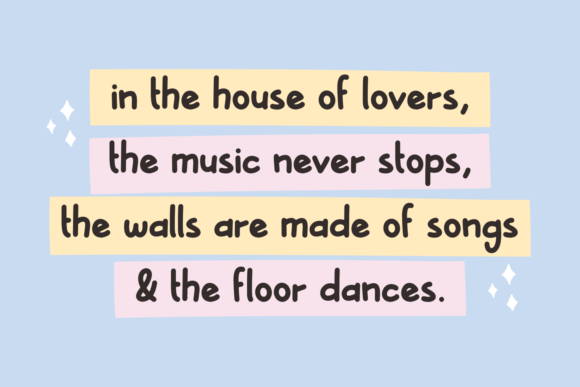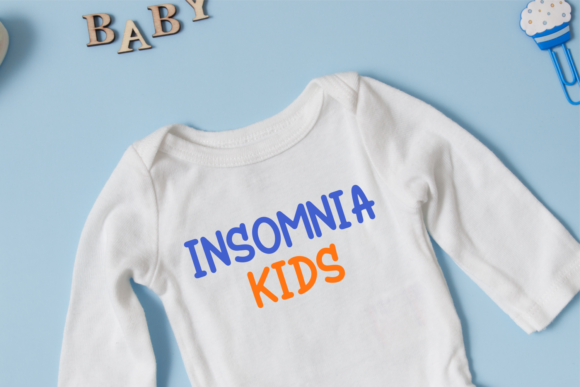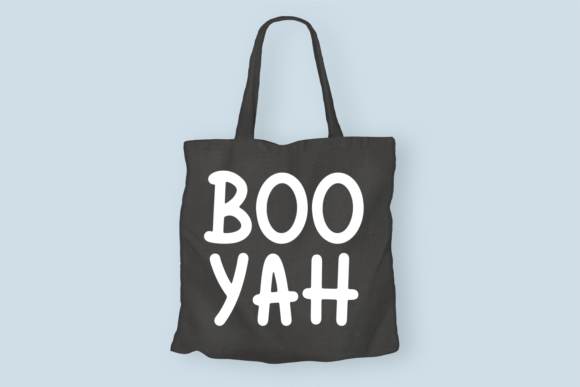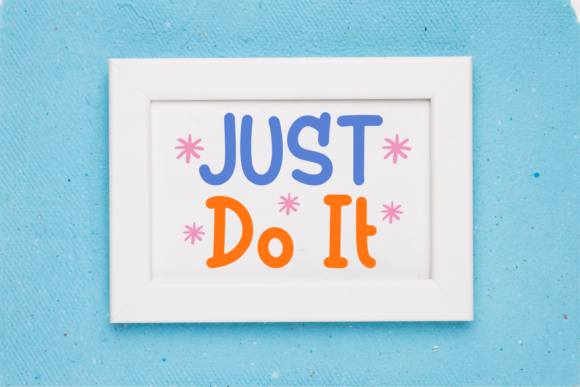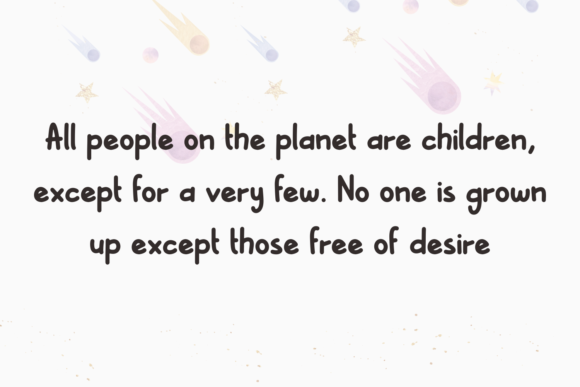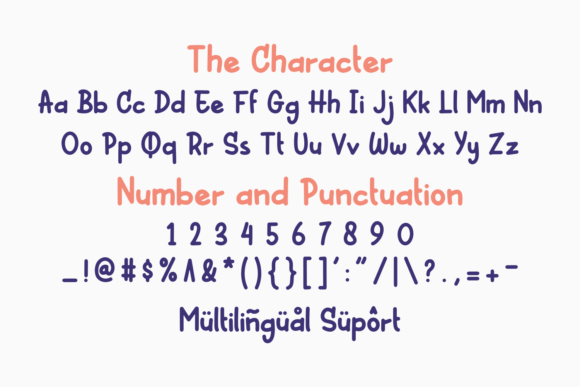
Unlock the Magic of Elegant Typography
Have you ever felt like you’ve hit a creative wall, staring at a blank page or screen, searching for that perfect font to elevate your design? You know, that one font that makes your project stand out from the crowd and leaves a lasting impression. For me, that font is Born Rounded Font – a beautiful, handwritten masterpiece that brings a touch of elegance to any project.
Born Rounded Font is more than just a font – it’s a tool to make your branding shine. With its unique, hand-crafted letters, this font is perfect for adding a personal touch to your designs. Whether you’re creating headings, logos, ads, or even your website or social media branding, Born Rounded Font is sure to make your design come alive. Its smooth curves and beautiful texture make it a dream to work with – and perfect for cut machines like Cricut and Silhouette!
Born Rounded Font Key Features
- Font Family: Born Rounded Font is a sans-serif font with rounded edges, designed for readability and user experience.
- Character Count: The font includes a wide range of characters, including uppercase and lowercase letters, numbers, punctuation, and special characters.
- Unique Characteristics: The rounded edges of the font give it a friendly and approachable feel, making it suitable for applications such as branding, signage, and user interface design.
Born Rounded Font Review
Overall, I think Born Rounded Font is a solid choice for designers who want a clean, modern look for their projects. ✨ The font’s rounded edges give it a friendly, approachable feel that works well in a variety of contexts, from digital products to print materials.
- The font’s rounded edges make it feel soft and approachable, which is great for designs that need to convey a sense of warmth and friendliness.
- It’s highly legible, even at small font sizes, which makes it a good choice for digital products and interfaces.
- The font is highly customizable, with a wide range of weights and styles available.
However, there are some limitations to consider. ⚠️ For example, the font may not be the best choice for designs that need to convey a sense of sophistication or elegance. Additionally, some users may find the rounded edges to be too playful or juvenile.
Overall, I think Born Rounded Font is a great choice for designers who want a clean, modern look that’s easy to read and customize. While it may not be the best choice for every project, it’s definitely worth considering for designs that need a friendly, approachable feel.
Tips for Getting the Most Out of Born Rounded Font
Use Born Rounded Font for:
- Casual and friendly designs.
- Branding and logos.
- Signage and wayfinding.
Experiment with different font sizes and styles to create a unique look.
Born Rounded Font is commonly used for:
- Children’s products and services.
- Apparel and fashion branding.
Alternatives to Born Rounded Font
Great Vibes Font is a modern and elegant sans-serif font that is perfect for creating a clean and sophisticated look. It is ideal for use in logos, branding, and digital products where a professional and friendly tone is required.
Comparison to Born Rounded Font: Great Vibes Font has a more refined and precise feel compared to Born Rounded Font, which is more rounded and playful. Great Vibes Font is also more versatile and can be used in a wide range of applications.
Lato Font is a clean and modern sans-serif font that is designed to be highly legible and versatile. It is perfect for use in body text, headings, and titles where a clear and concise tone is required.
Comparison to Born Rounded Font: Lato Font has a more minimalist and understated feel compared to Born Rounded Font, which is more rounded and playful. Lato Font is also more suitable for use in long blocks of text, while Born Rounded Font is better suited for use in short headings and titles.
Q: What is the recommended font size for Born Rounded Font?
The recommended font size for Born Rounded Font is between 12pt and 24pt. This range provides optimal readability and visual appeal. However, feel free to experiment with different font sizes to achieve the desired look and feel for your project.